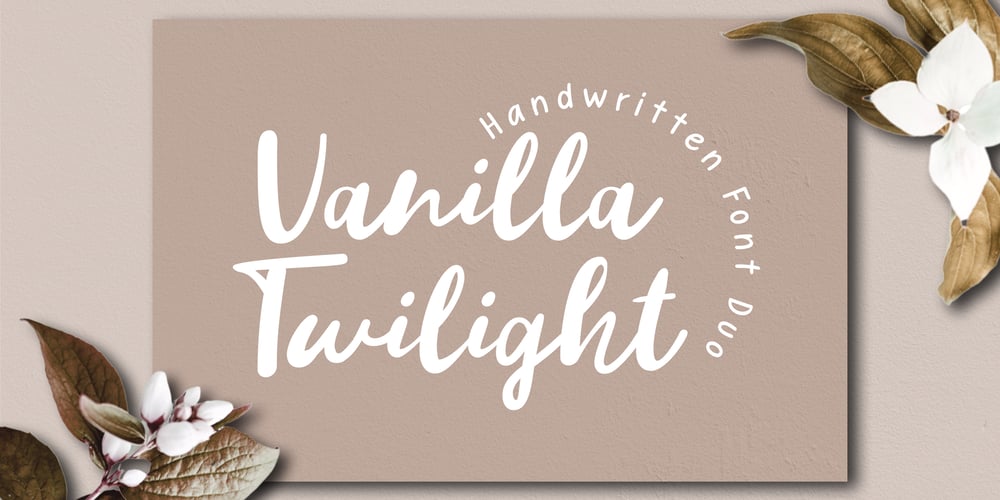
Vanilla Twilight
Vanilla Twilight font
Vanilla Twilight Font Family was designed by Winarno and published by Bluestudio. Vanilla Twilight contains 2 styles and family package options. Vanilla Twilight is a collection of handwritten fonts for every design project that requires a light, cute and charming feel. Use it to make any design project stand out! Vanilla Twilight includes Multilingual support – spread your message globally AÀÁÂÃÄÅCÇDÐEÈÉÌÍÎÏIÌÍÎÏNÑOØÒÓÔÕÖUÙÜÚÛWYÝŸÆßÞþ Coded PUA Characters Fonts are fully accessible without additional design software. Happy designing …! Thanks.